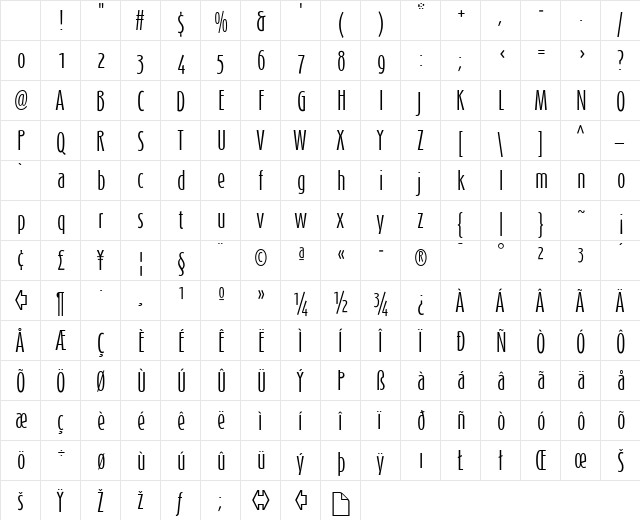
Complete Schmalhans Regular glyph index. Displaying only characters natively supported by Schmalhans Regular font.
Schmalhans is a composed and adaptable typeface that performs quietly and consistently across a wide range of design contexts.
Who designed the Schmalhans Regular font?